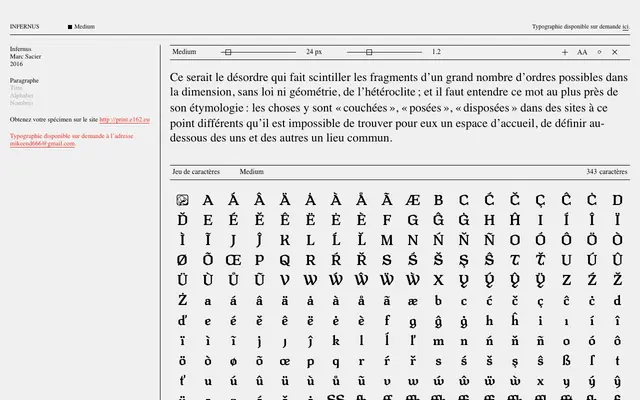
Infernus
E162 · Marc Sacier · 2016
A single-weight display typeface by Marc Sacier, available by request from the French foundry E162.
Released in 2016 by Marc Sacier under the French foundry E162, Infernus is offered in a single Medium weight covering 343 characters. Its availability only on request and the accompanying specimen site suggest a limited, considered release aimed at editorial or expressive applications. The foundry's French-language presentation and niche distribution model place it firmly within independent European type culture.
The name, the single weight offering, and the gothic/infernal aesthetic implied by the branding suggest a display-oriented typeface with expressive or decorative intent rather than text utility.